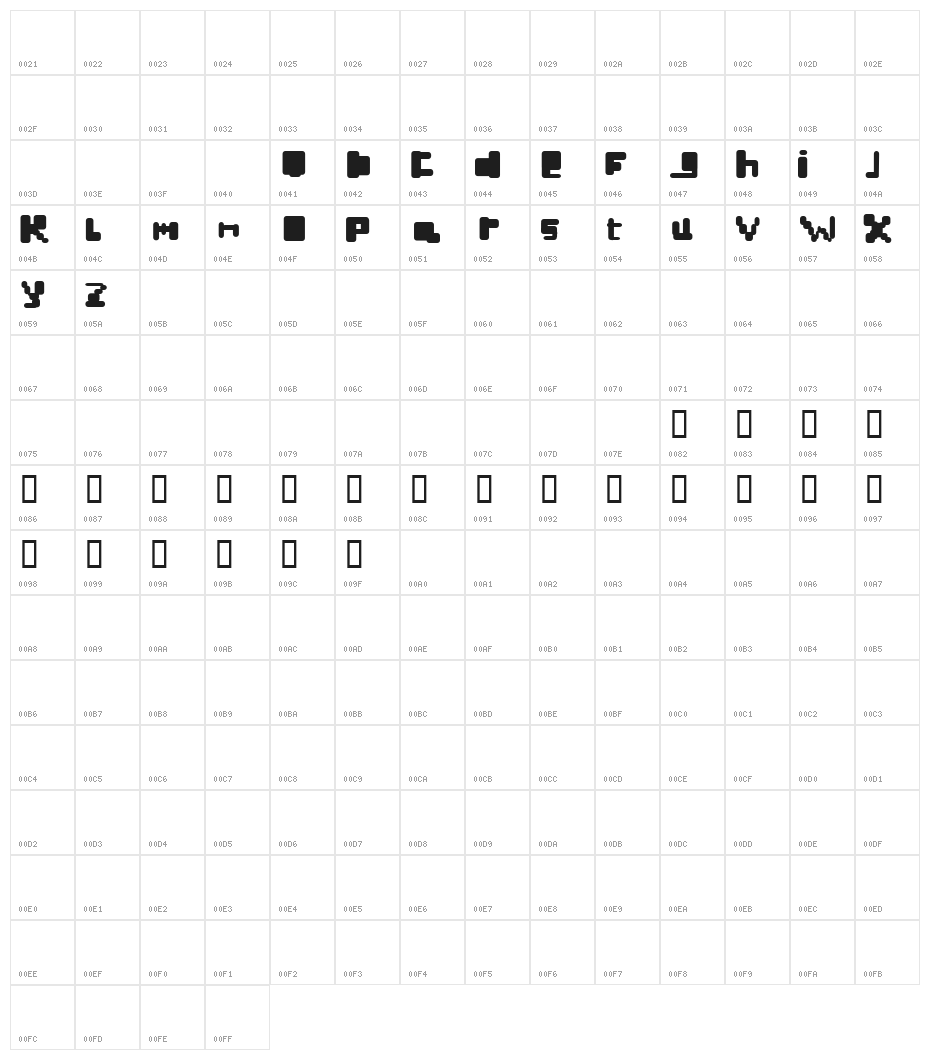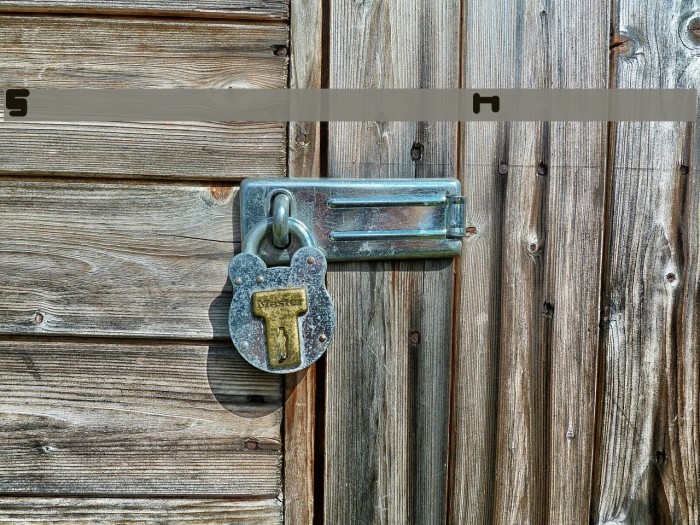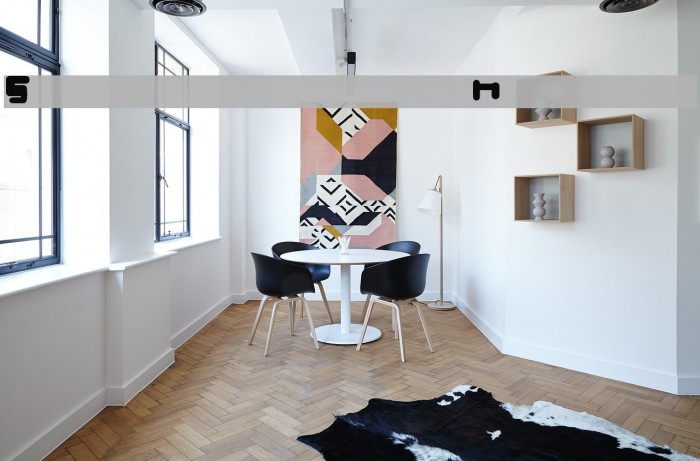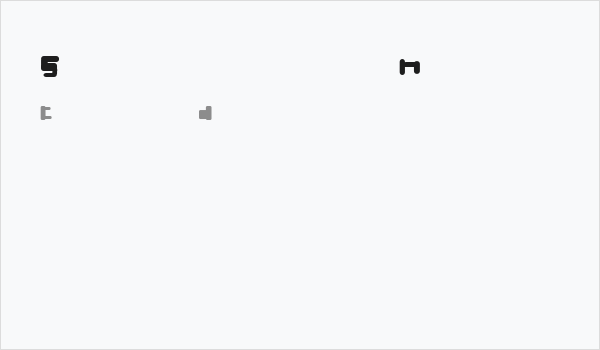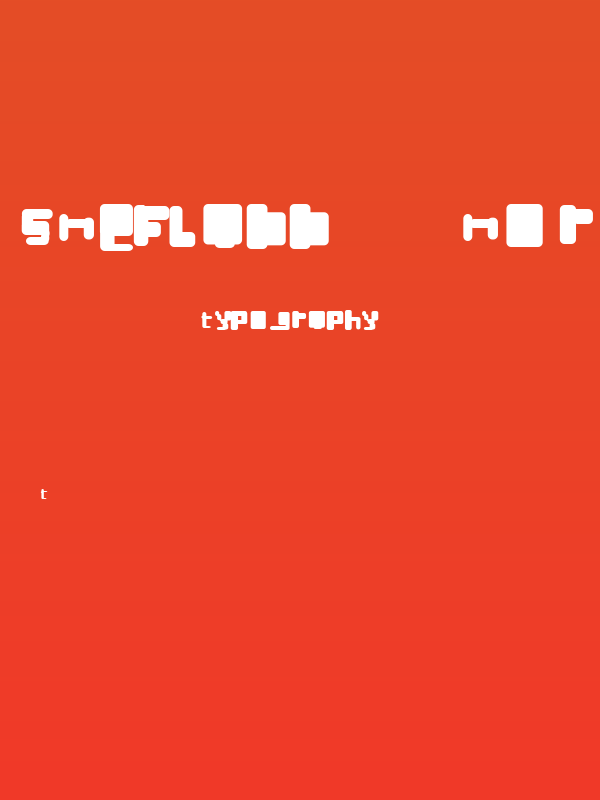
Sneflabb Normal Font
Sneflabb Normal Description
This font features a bold and chunky design with a playful and quirky aesthetic. The characters are heavily rounded with thick strokes, giving it a strong presence. The unique style incorporates a mix of geometric shapes and soft curves, creating a distinctive look that stands out. The uppercase and lowercase letters maintain a consistent weight, while the numbers and special characters follow the same bold and rounded theme. This font is ideal for projects that require a fun and eye-catching display.
| Overall Style | Playful, Quirky, Modern |
| Proposed Projects | Perfect for posters, children's books, playful branding, and eye-catching headlines. |